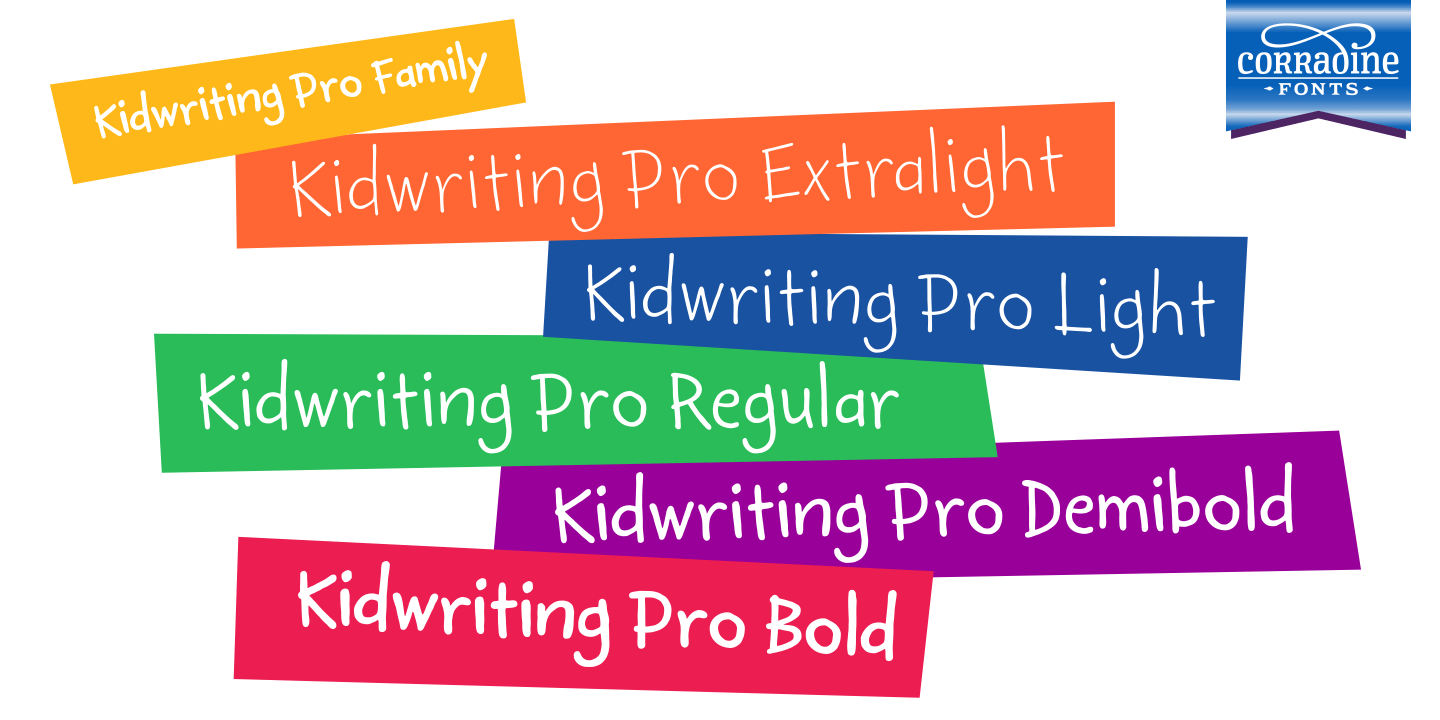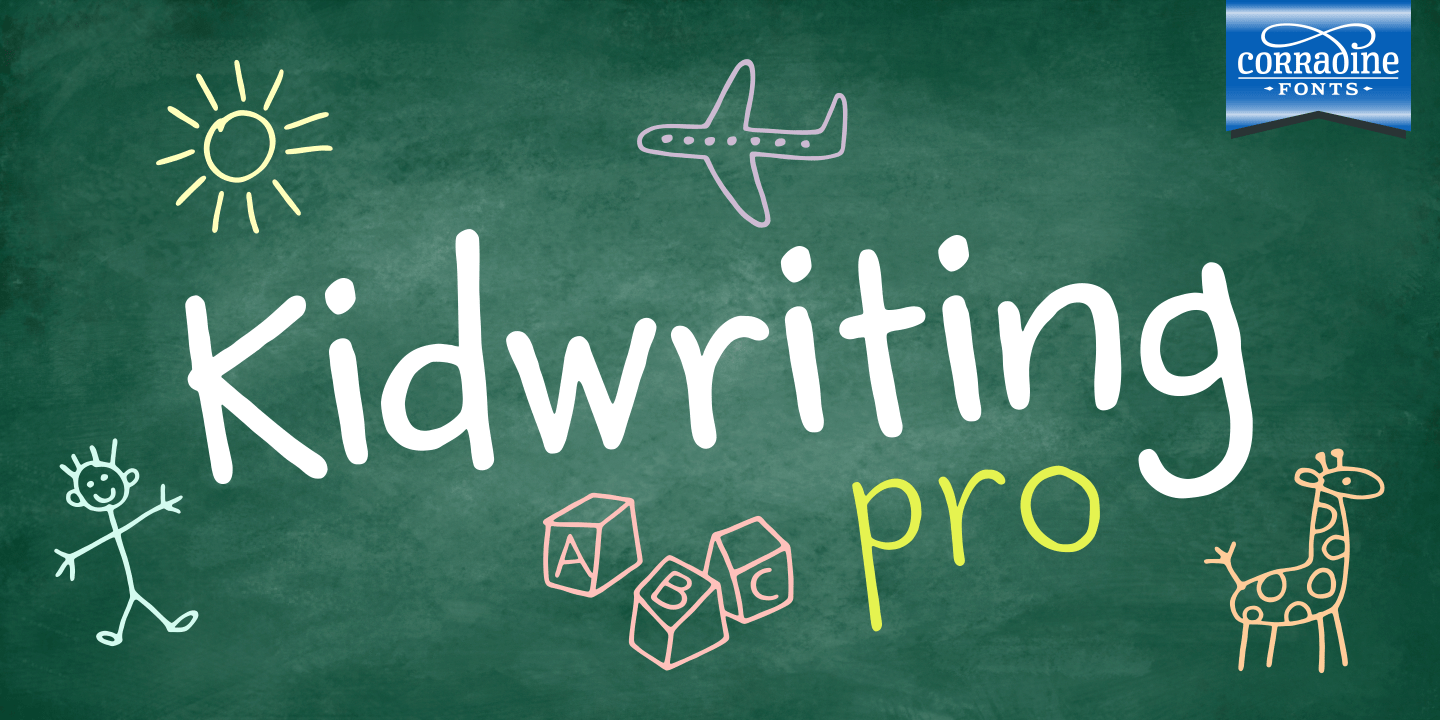
About Kidwriting
Kidwriting is a hand-drawn font, originally released in 2007. Now, we are proud to present a totally redrawn and improved font: Kidwriting Pro, which include not just a softer appearance but also an extended set of characters and new typographic features…